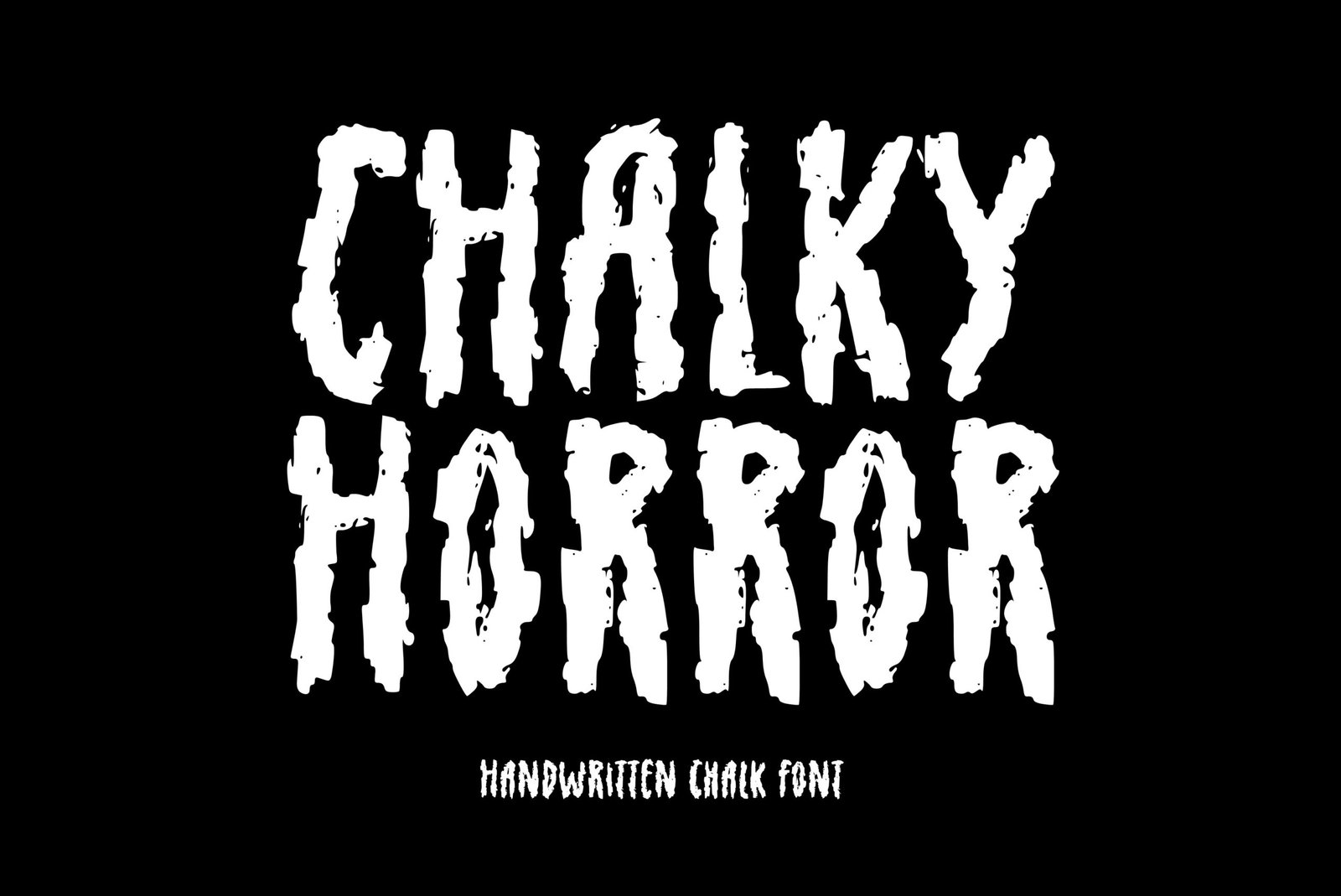
Chalky Horror Font
Handwritten chalk brush font. “Chalky Horror”. Perfect for advertising and display purposes, including banners, book covers, shirts, posters, logos and much more!
This is an ALL CAPS font, featuring numbers, characters, and punctuation.